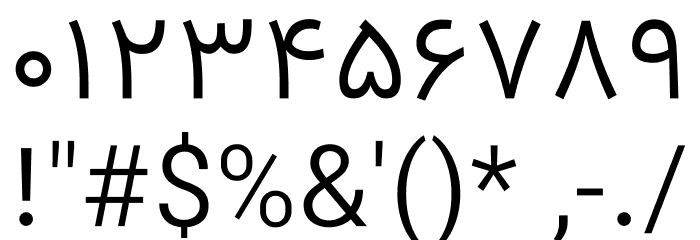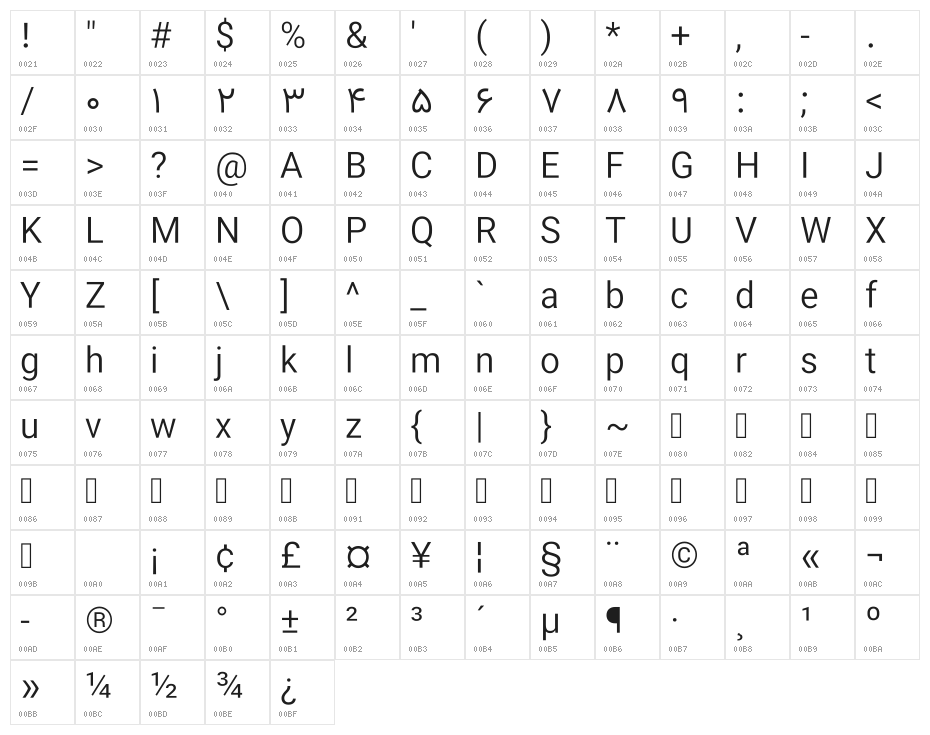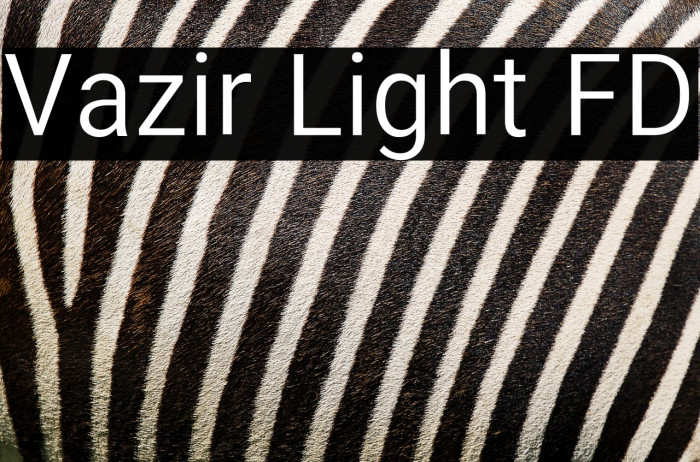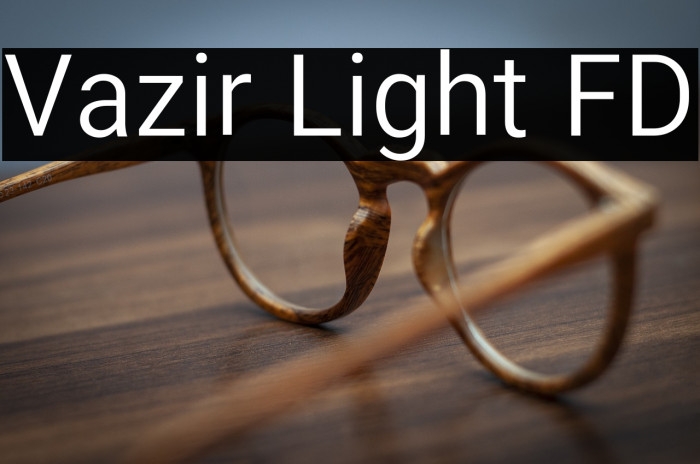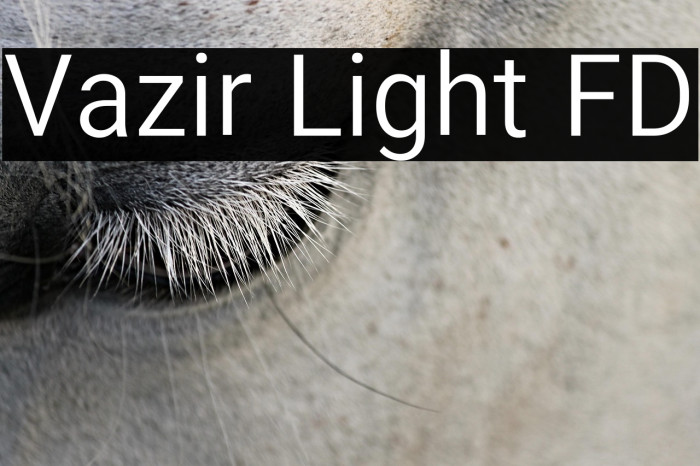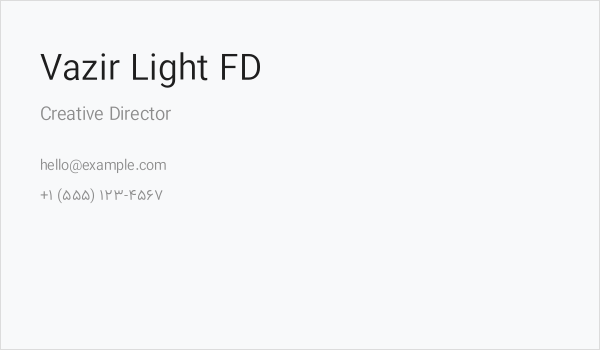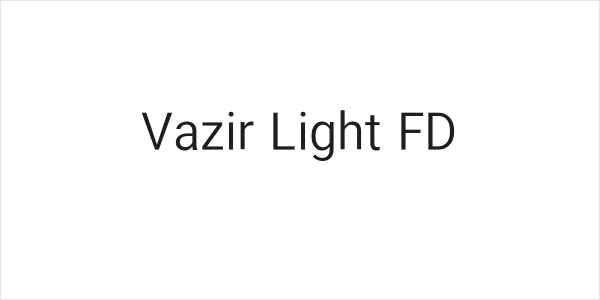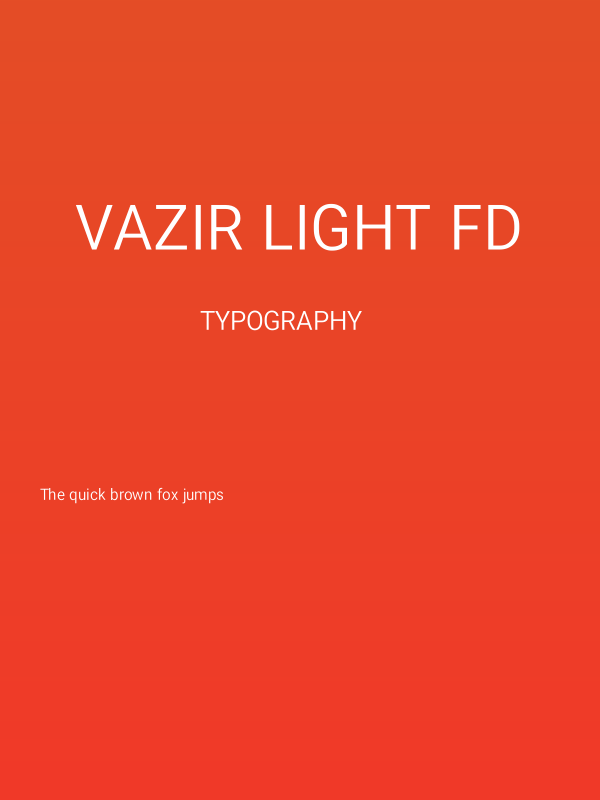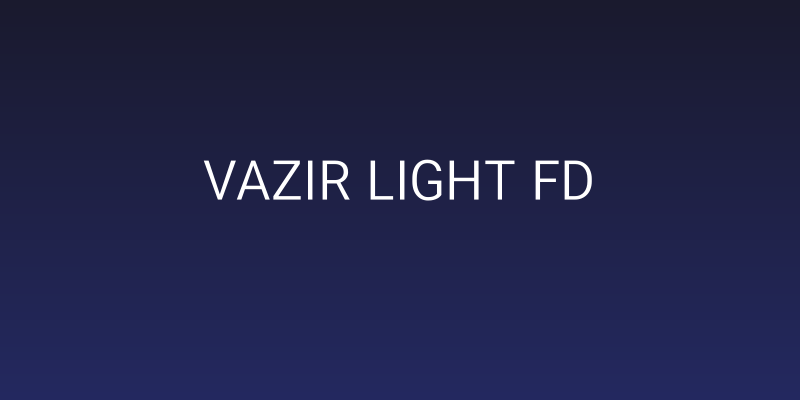
Vazir Light FD Font
Vazir Light FD Description
This font features a clean and modern sans-serif design, characterized by its simplicity and readability. The letters are evenly spaced, with a consistent stroke width that gives it a uniform appearance. The uppercase and lowercase letters are well-proportioned, making it versatile for various applications. The numerals are clear and distinct, while the special characters are easily recognizable. This font's straightforward style makes it suitable for both digital and print media, offering a professional and contemporary look.
| Proposed Projects | Ideal for web design, corporate branding, user interfaces, and editorial content. |